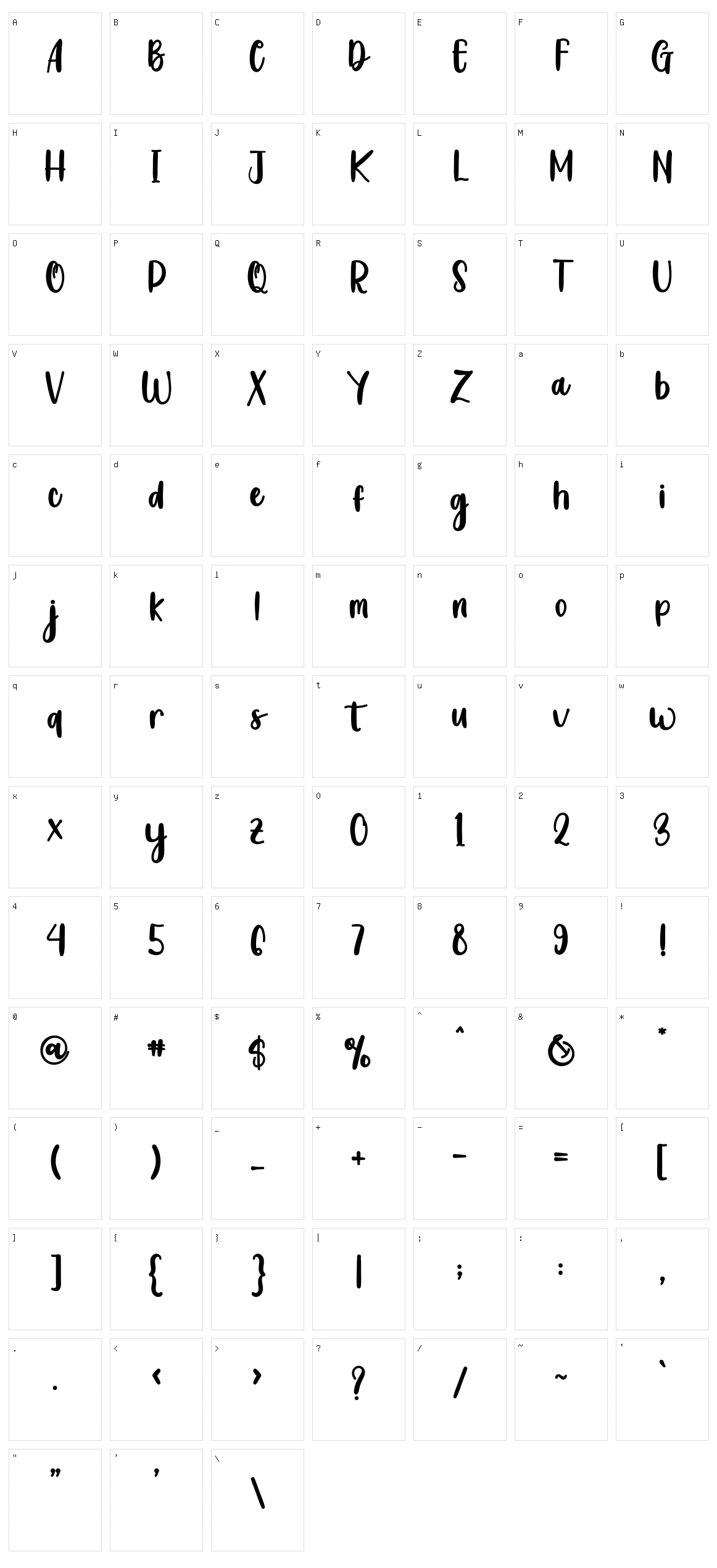
The free font Black Coffee is carefully designed by FreshtypeINK, showcasing a thoughtful balance of creativity and usability and falls under the Script font style. When you download the ZIP file, it contains only 45.82 KB of font files, making it lightweight and quick to download. Please review the license details below to understand permitted usage and distribution rights. If license information is not available, we recommend using this font for personal projects only or contacting the author directly for commercial usage permissions.